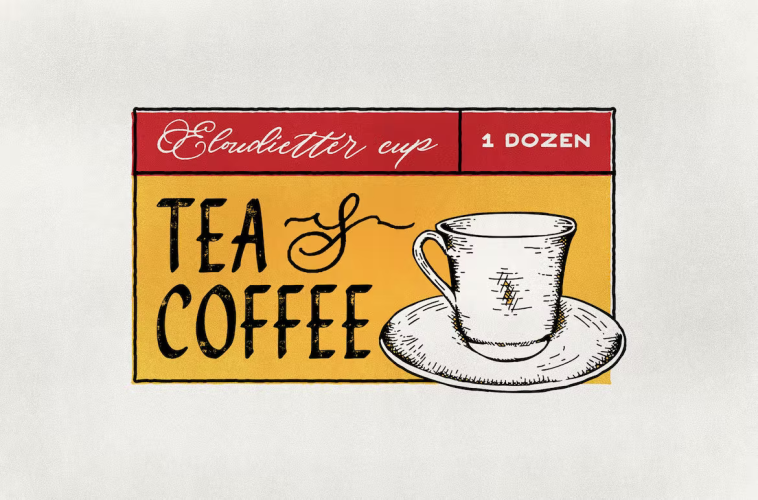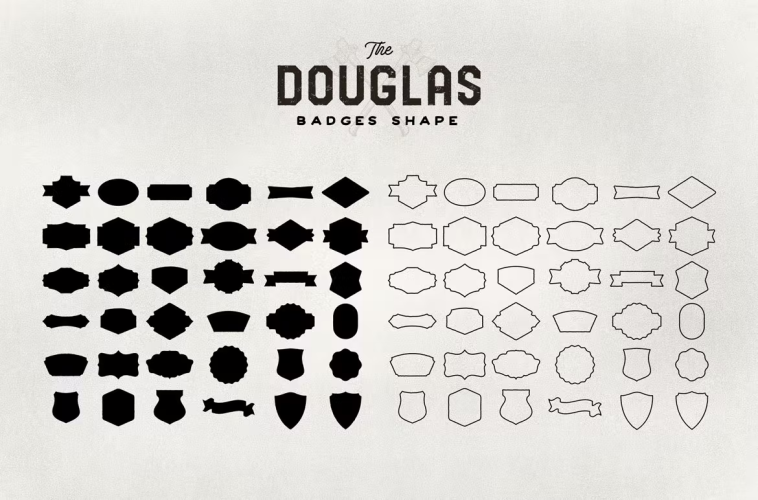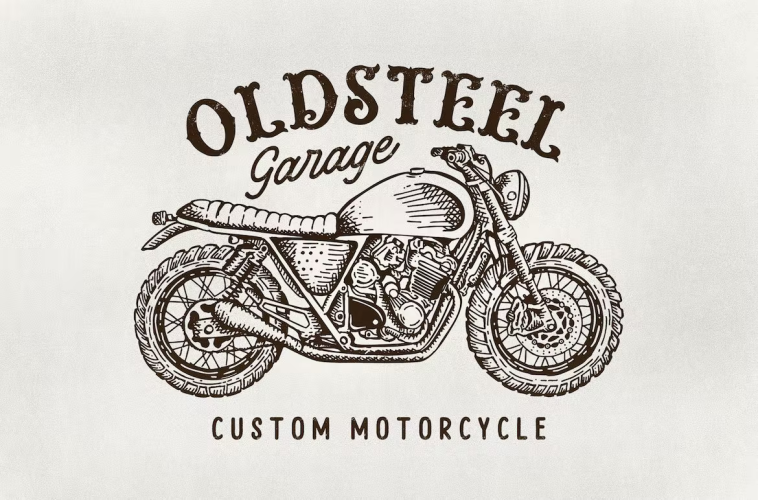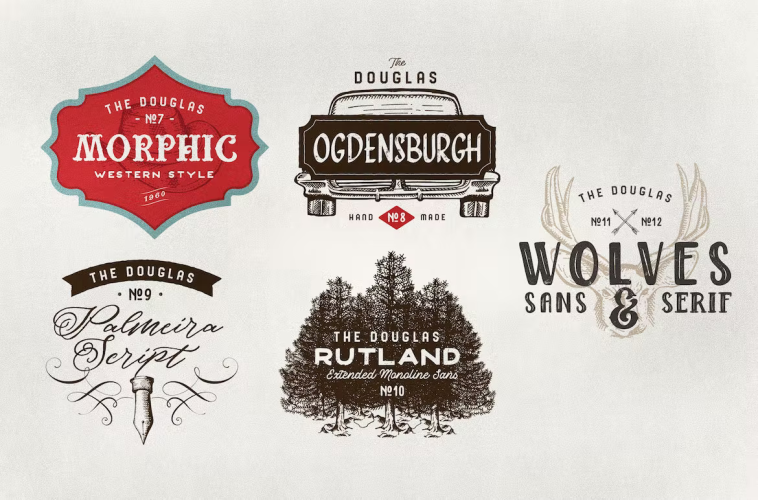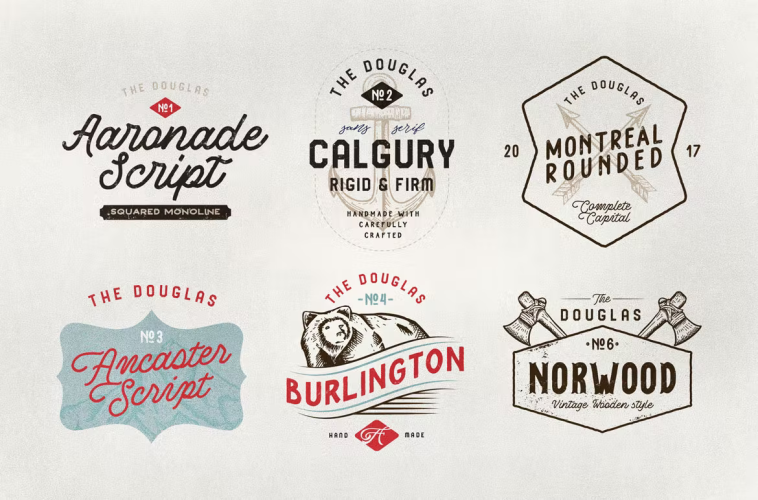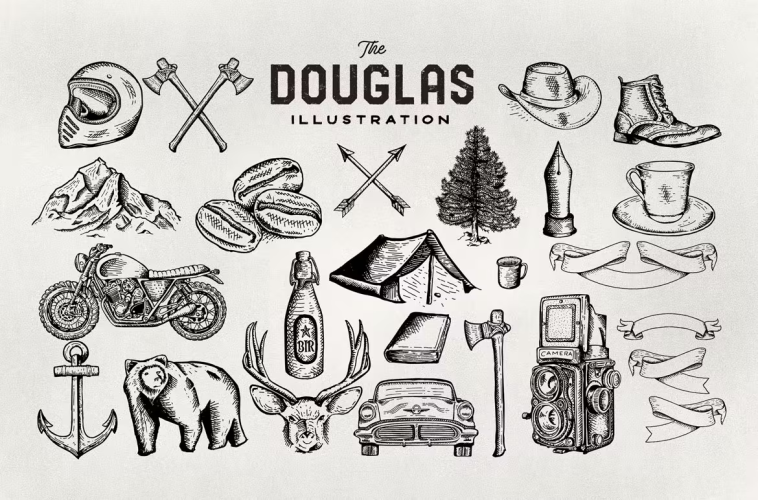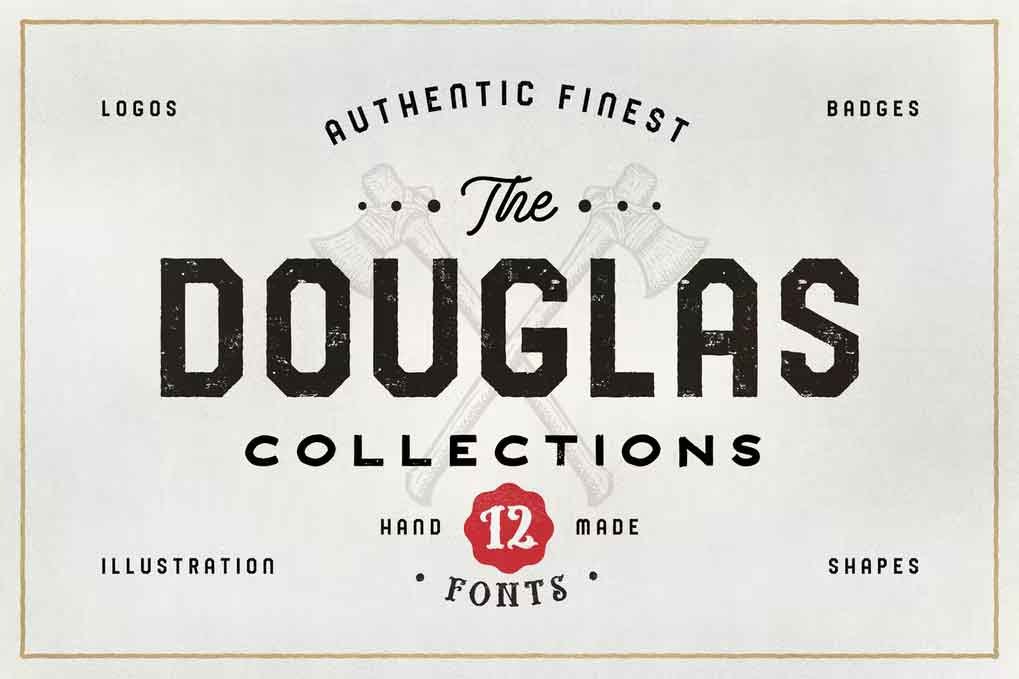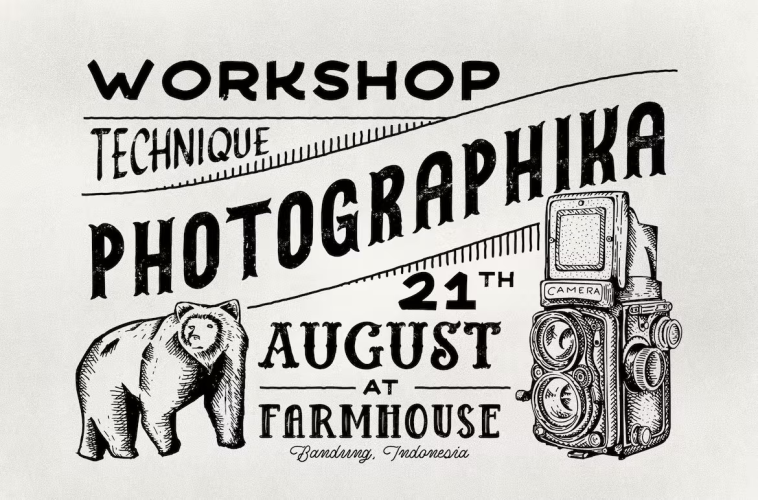
The Douglas Collections Font
THE DOUGLAS COLLECTIONS —
Introducing the new HUGE pack of my work. The DOUGLAS ! Comes with 12 Handmade FONT FILES with rough effect, 25 Detailed Illustration, 24 Editable text Logos and 36 Shape Badges (72 if counting with Line verson of badges).
I’ve never been easier to create the vintage Display image of the product except this one. You can mix and match the font you want to use, the illustration or use the badges on your design. This pack is great to use on two tone color or with colored design like for logos, posters, advertising, book cover, and other artwork.